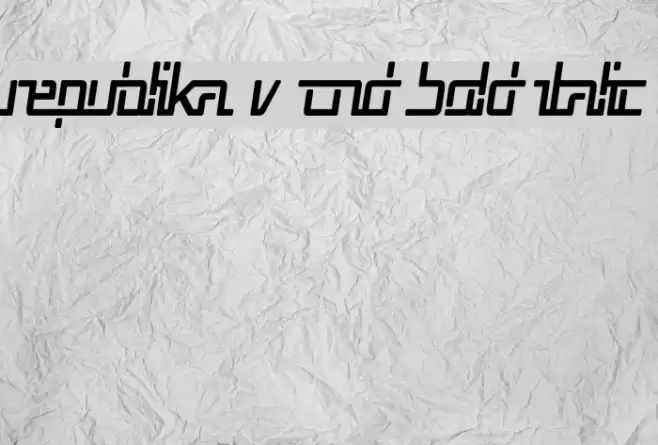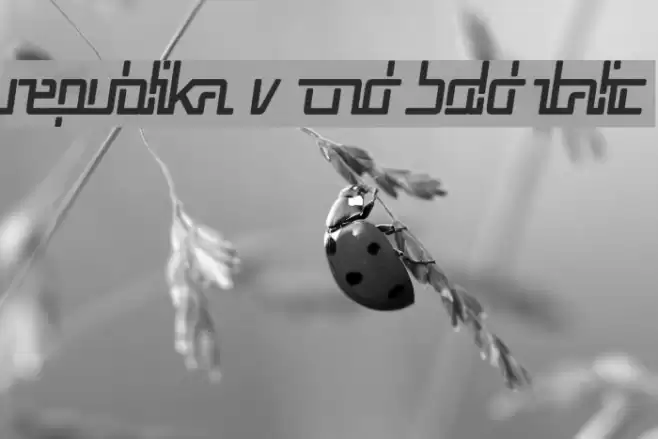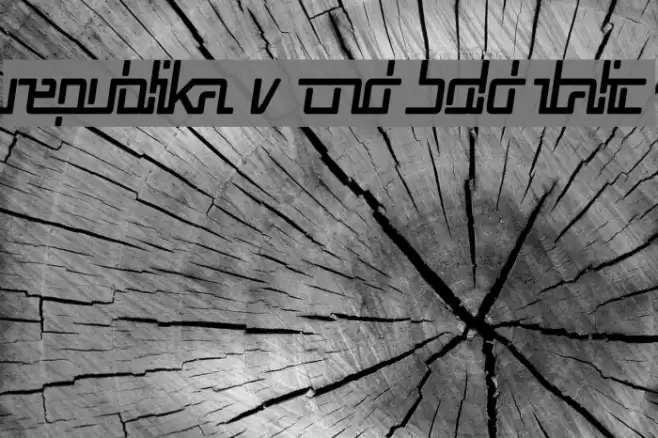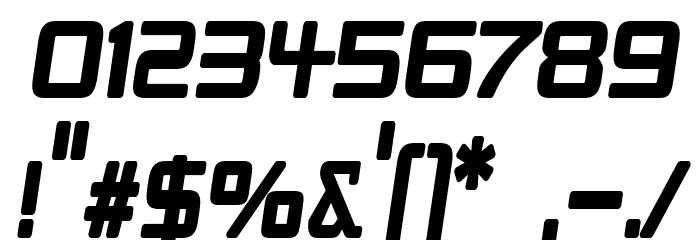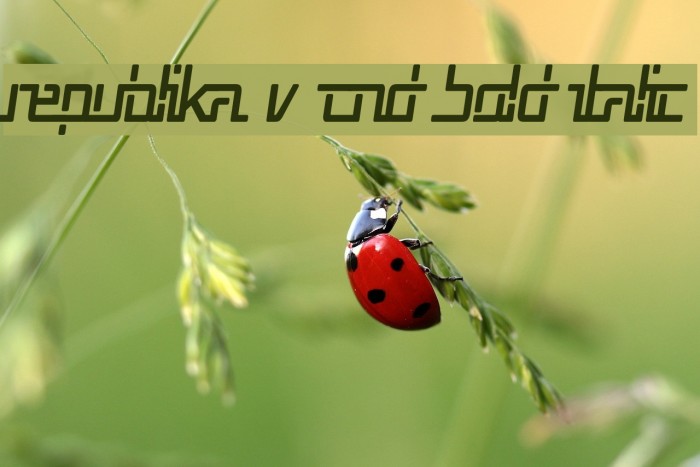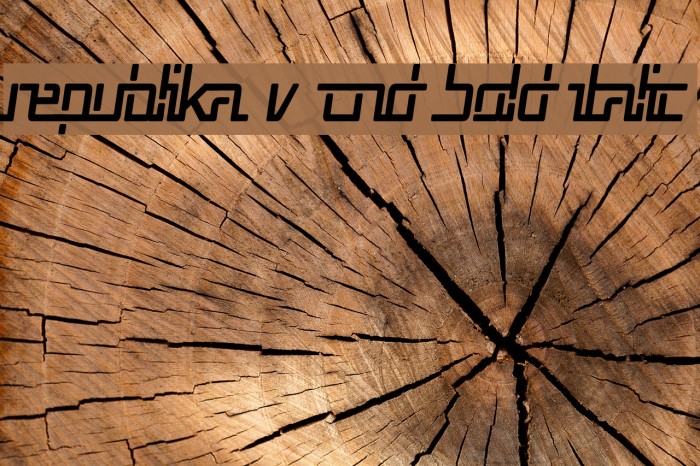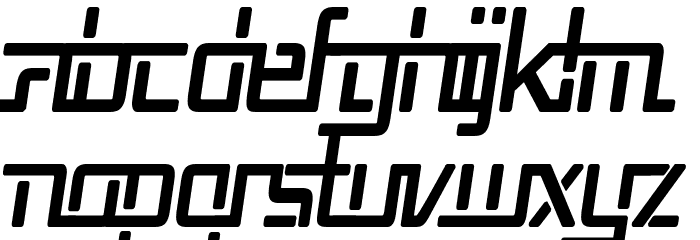
Republika V Cnd Bold Italic Font
Republika V Cnd Bold Italic Description
This font features a bold and italicized style with a condensed width, creating a striking and modern appearance. The characters are designed with a futuristic and geometric flair, incorporating sharp angles and clean lines. The uppercase and lowercase letters maintain a consistent height, enhancing readability while adding a unique aesthetic. The numbers and special characters follow the same design principles, ensuring a cohesive look across all glyphs. This font's distinct style makes it suitable for projects that require a contemporary and edgy feel.
A bold, italicized, and condensed font with a futuristic geometric style from Uncategorized fonts.
- Proposed Projects: Ideal for modern branding, tech-related designs, futuristic posters, and digital media.
- Overall Style: Futuristic